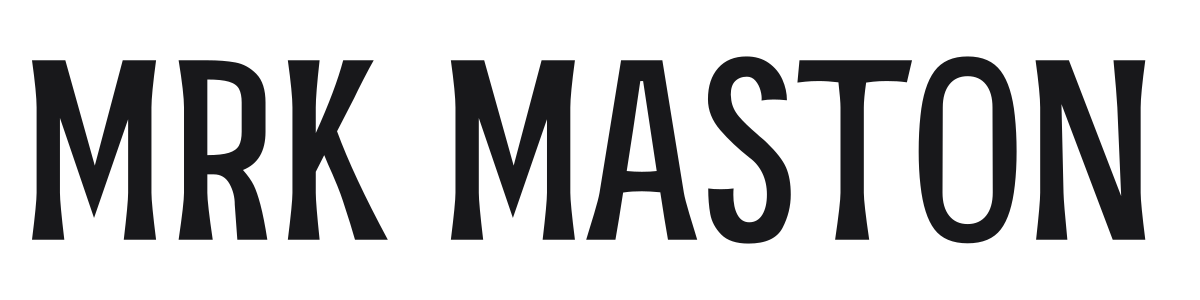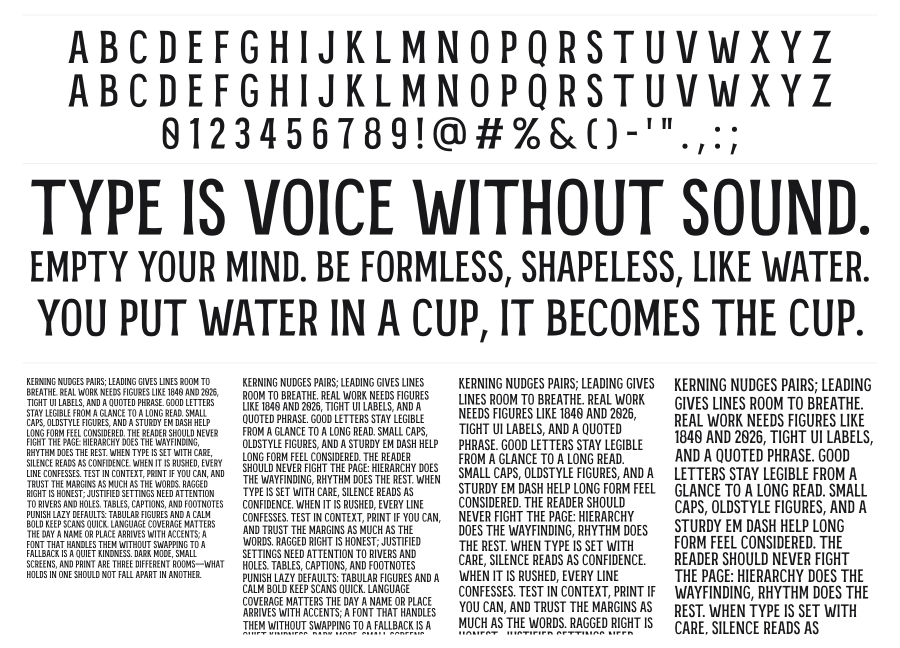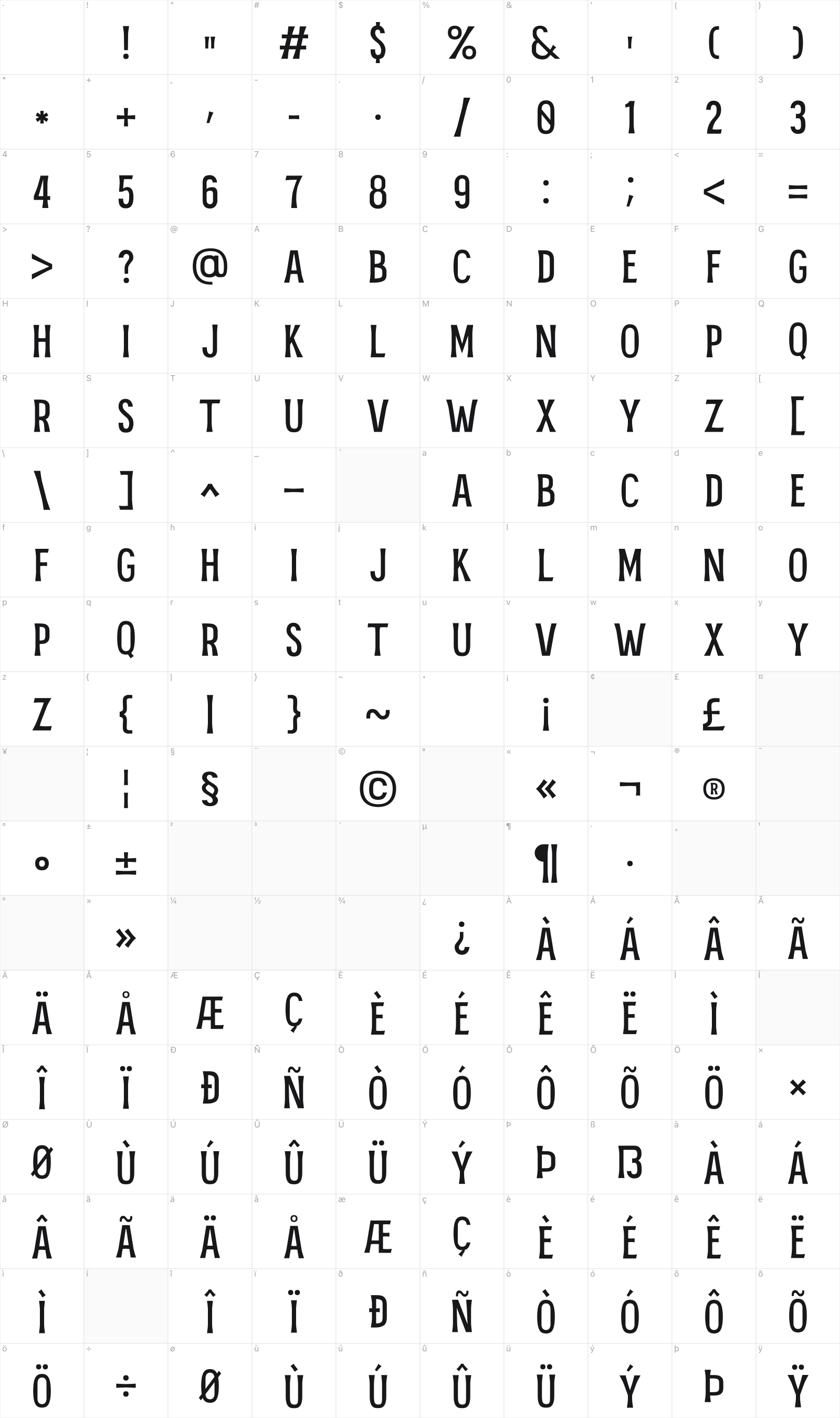
MRK Maston
by Marka Design
MRK Maston is a bold condensed grotesque sans with tight proportions and a no-nonsense industrial character. The near-monoweight strokes and flat terminals keep it clean and direct, letting density and weight do all the expressive work. It reads powerfully at large sizes in headlines, posters, and sports branding.